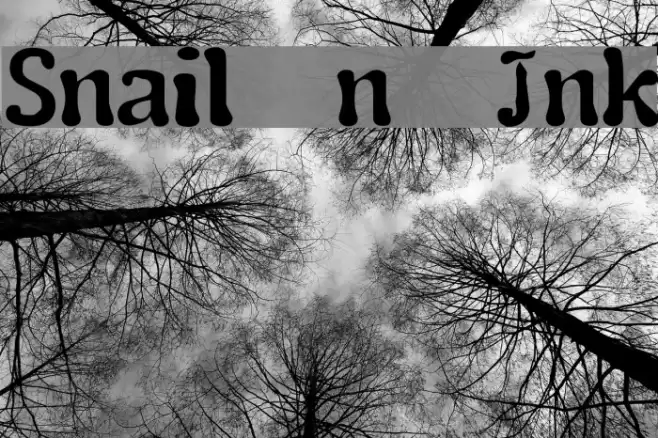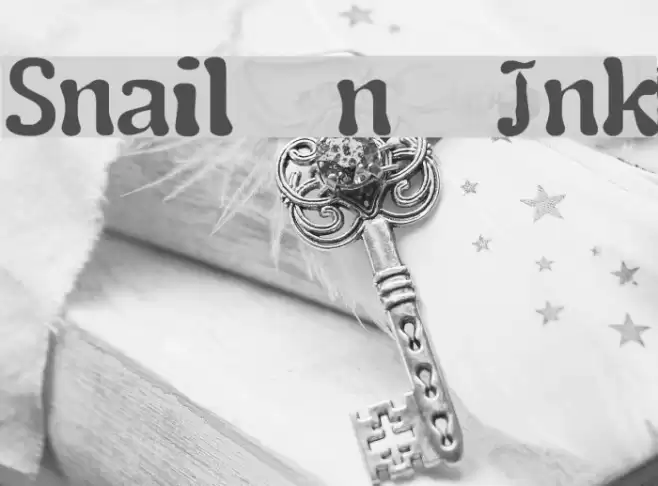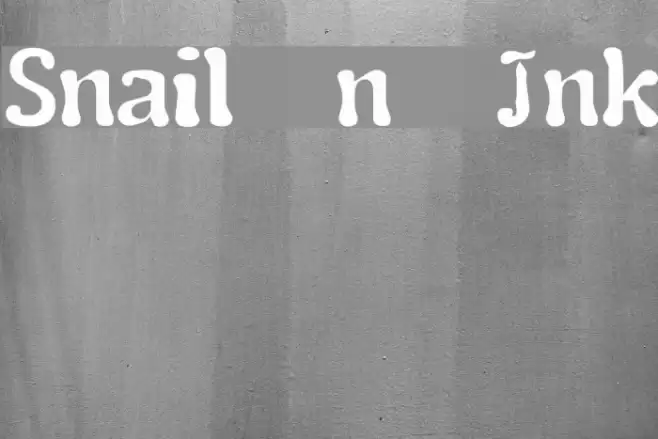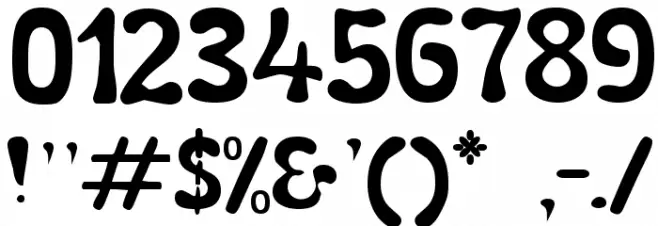
Snail n Ink Font
Snail n Ink Description
This font features a playful and whimsical design with a hand-drawn aesthetic. The characters are bold and rounded, with a slightly irregular shape that adds to its charm. The strokes are thick and consistent, giving the font a strong presence. The uppercase and lowercase letters maintain a cohesive style, with a slight slant that adds a dynamic feel. The numerals and special characters are equally bold and maintain the quirky, artistic style of the alphabet. This font is ideal for projects that require a fun and engaging look.
A playful, hand-drawn font with bold, rounded characters and a whimsical style from Comic fonts.
- Proposed Projects: Great for children's books, playful branding, greeting cards, and creative posters.